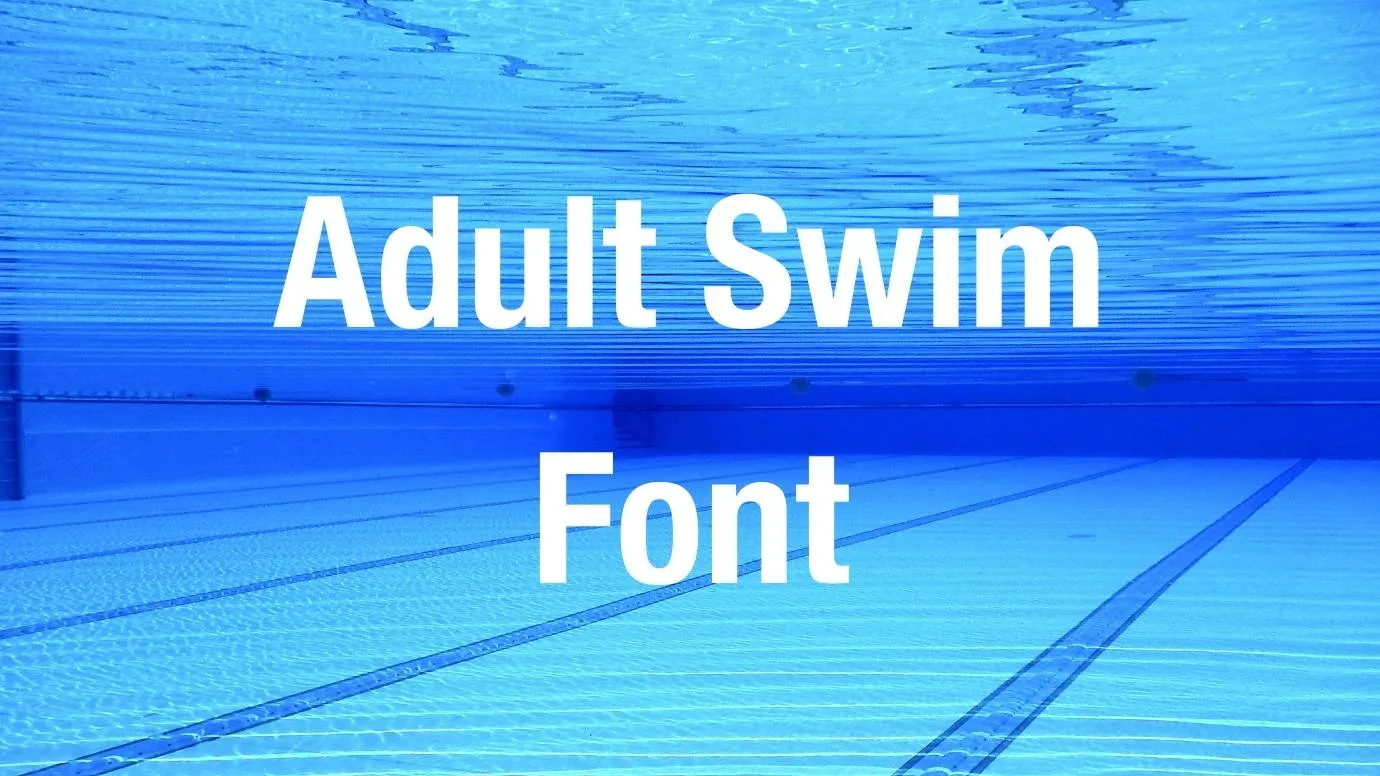
Adult Swim Font Family a unique typeface that was designed by two typographic designers named Max Miedinger and Eduard Hoffman. It belongs to the sans-serif typeface and it is also called Neue Haas Grotesk Font.
Due to its good-looking and bold characters, this typeface got an awesome position and many international industries use this typeface for their branding and logos.
Adult Swim Font